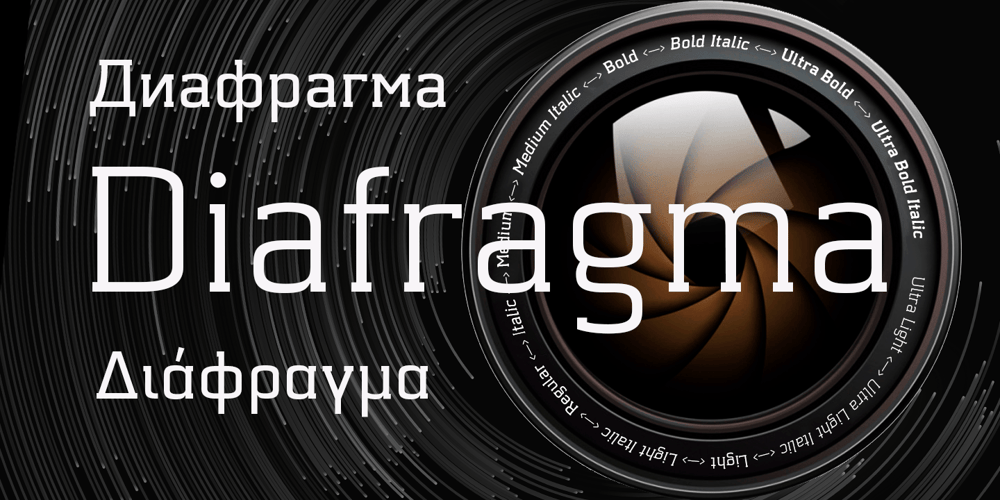
Diafragma Font Family was designed by Aleksei Chekulaev and published by ParaType. Diafragma contains 12 styles and family package options. Typeface was designed in 2021-2022 by Alexey Chekulaev. It has small serifs and original contours, it’s also well read in small sizes. Each style has 1400 characters of Latin, extended Cyrillic, Greek, including small caps, as well as alternate characters. Diafragma is a good choice for headings, logos, branding, packaging, publications and websites.